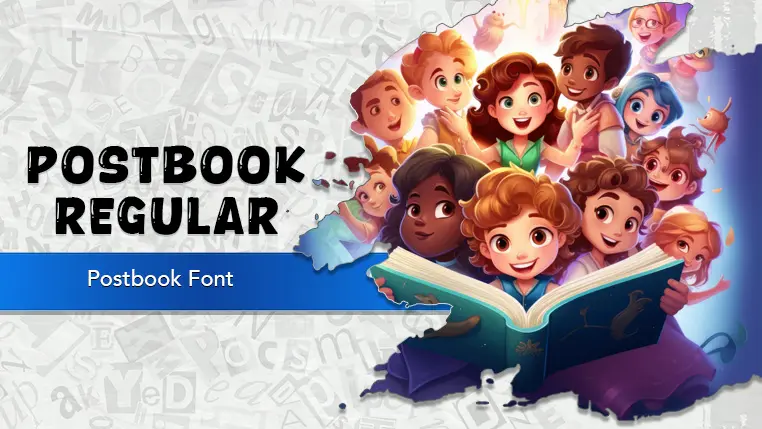
The Postbook font family may be ideal for you if you enjoy working on an artistic design project. The lively, expressive look of this typeface, which was created by Khurasan, makes it ideal for Perfect for Children books, worksheets, game interfaces, or any design aimed at kids due to its playful and inviting look. This is also excellent for events, sales, or announcements where you want to grab immediate attention with a fun and distinctive typeface. You can use this make posts stand out with a cheerful and engaging visual style. Suitable for logos and branding for cafes, bakeries, toy stores, craft shops, or any business with a friendly, approachable, and artistic identity. For food products, snacks, or toys that aim for a fun and appealing shelf presence. and other light-hearted visual projects.
Regular are the one primary font styles of the Postbook font family. You may build dynamic, visually appealing text layouts with the distinct flair that each style offers. With crisp, readable lines and a relaxed tone.